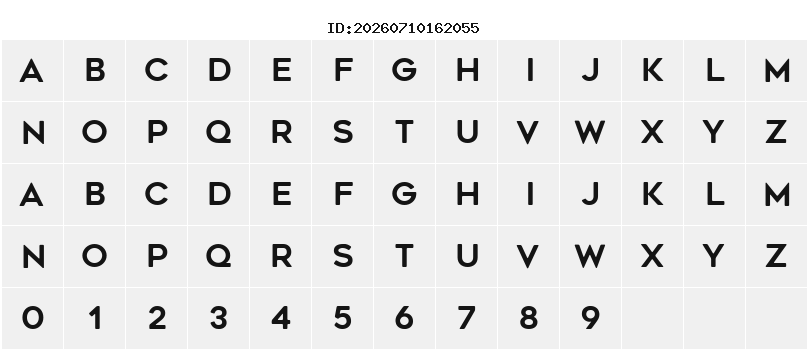
Geometos Rounded Preview
• Font Name: Geometos Rounded
• Full Font Name: Geometos Rounded
• Designer: Deepak Singh Dogra
• Manufacturer: Deepak Singh Dogra
About Geometos Rounded.ttf
Geometos Rounded.ttf is a modern, elegant sans-serif font designed for ultimate readability and visual harmony. Perfect for branding, headlines, web design, and print materials.